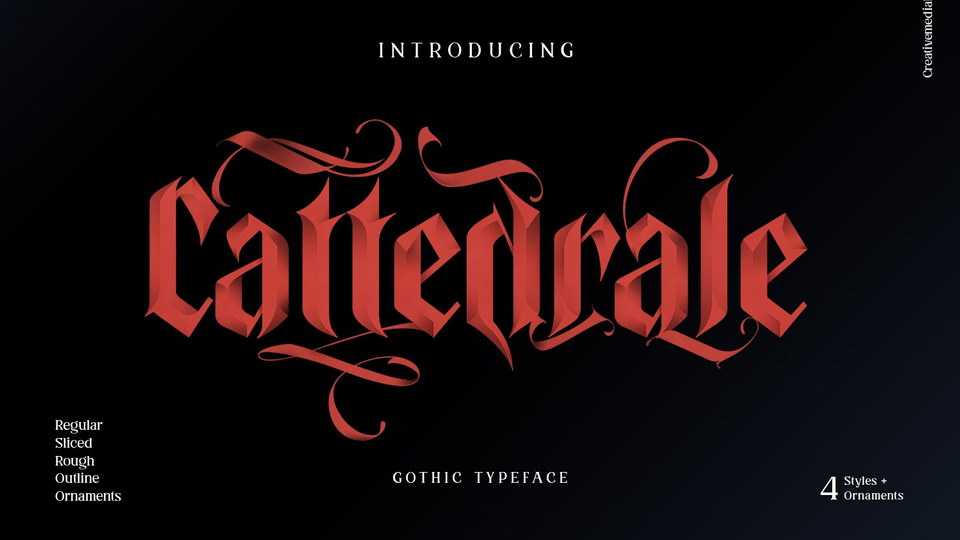
Download Cattedrale font, a unique gothic blackletter font. Cattedrale font is perfect for tattoos, clothing, labels and packaging, branding or any Gothic-themed projects!